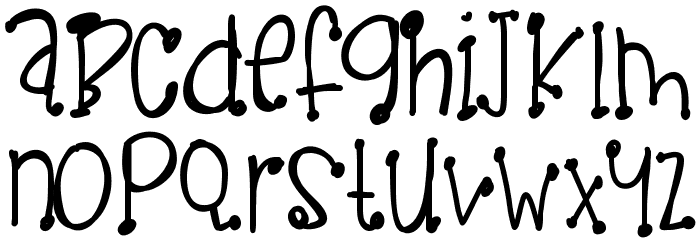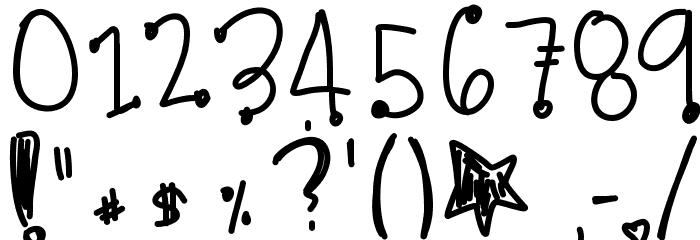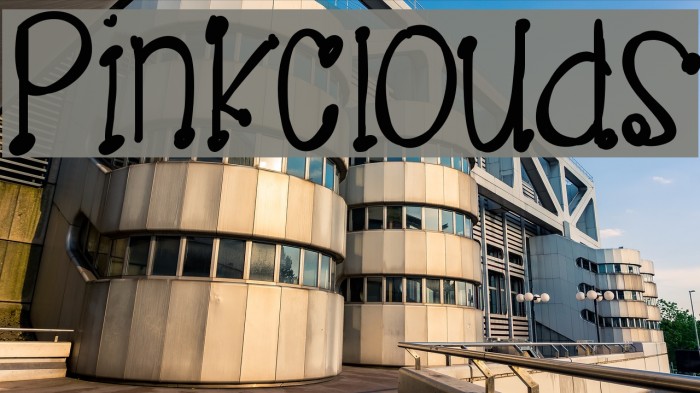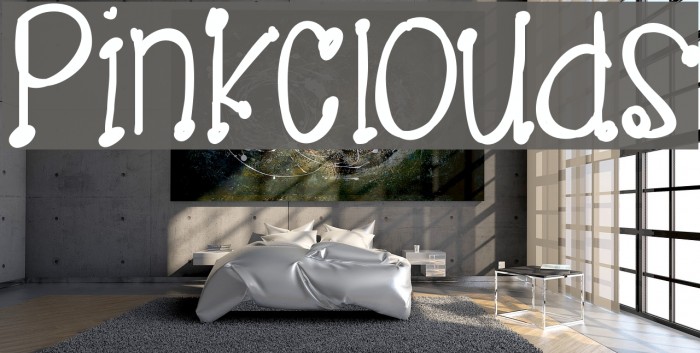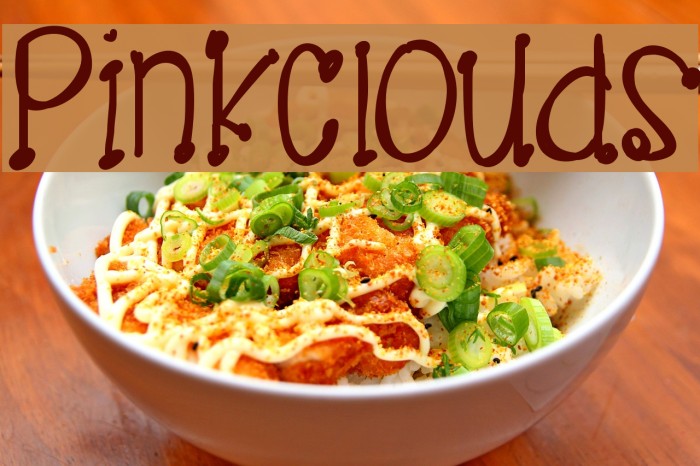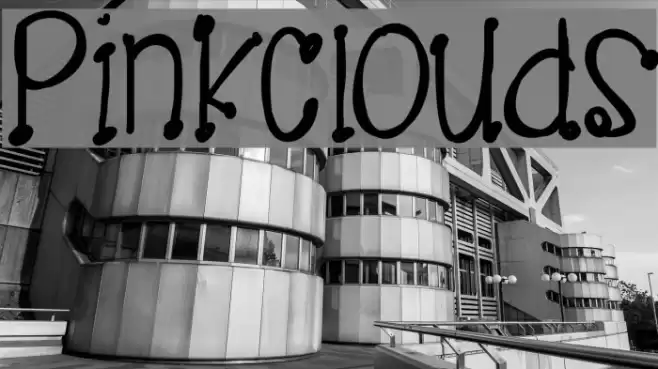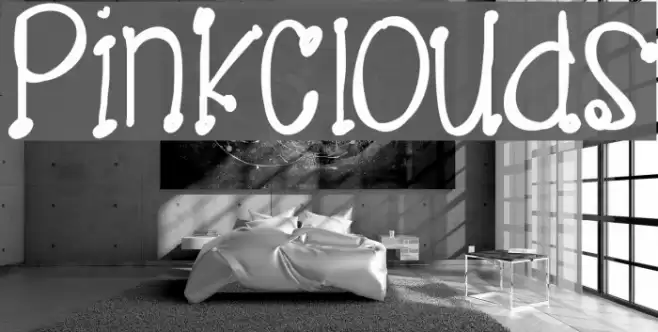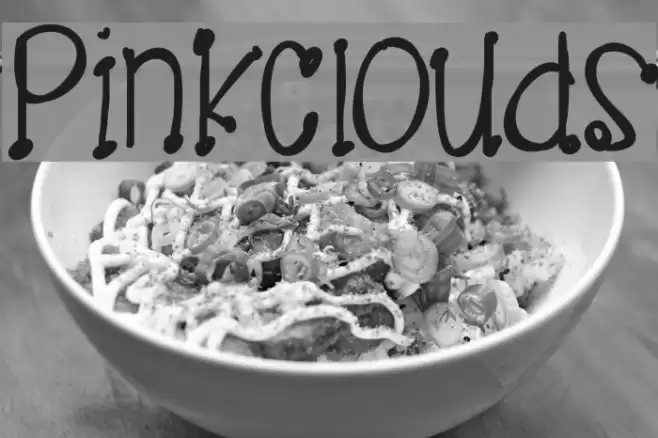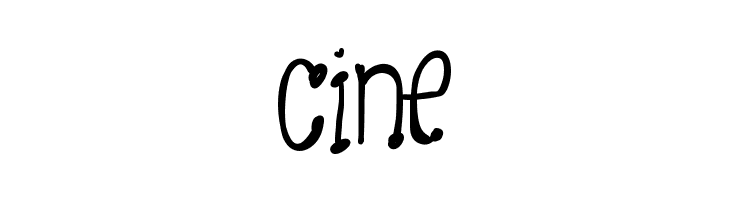
PinkClouds Font
This playful and whimsical font features a handwritten style with a unique flair. Each character is crafted with a casual, yet artistic touch, incorporating rounded edges and playful loops. The letters have a consistent stroke width, giving a uniform appearance while maintaining a lively and dynamic feel. The font includes both uppercase and lowercase letters, numbers, and a variety of special characters, making it versatile for different uses. Its distinct style is characterized by exaggerated curves and dots, adding a sense of fun and creativity to any project.
A playful, handwritten font with rounded edges and artistic loops.
- Proposed Projects: Ideal for children's books, playful branding, greeting cards, and creative posters.